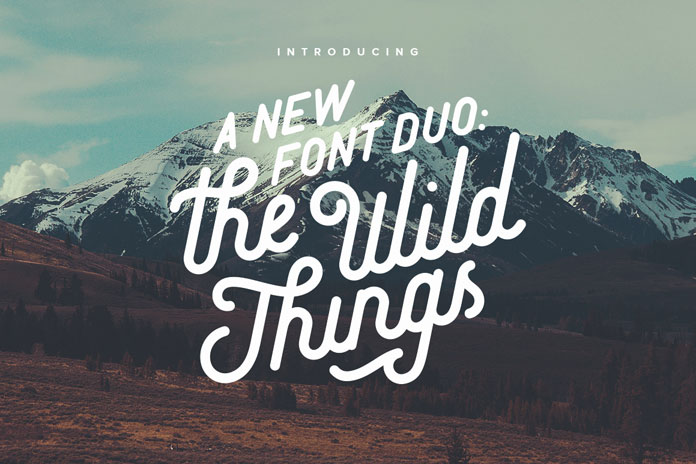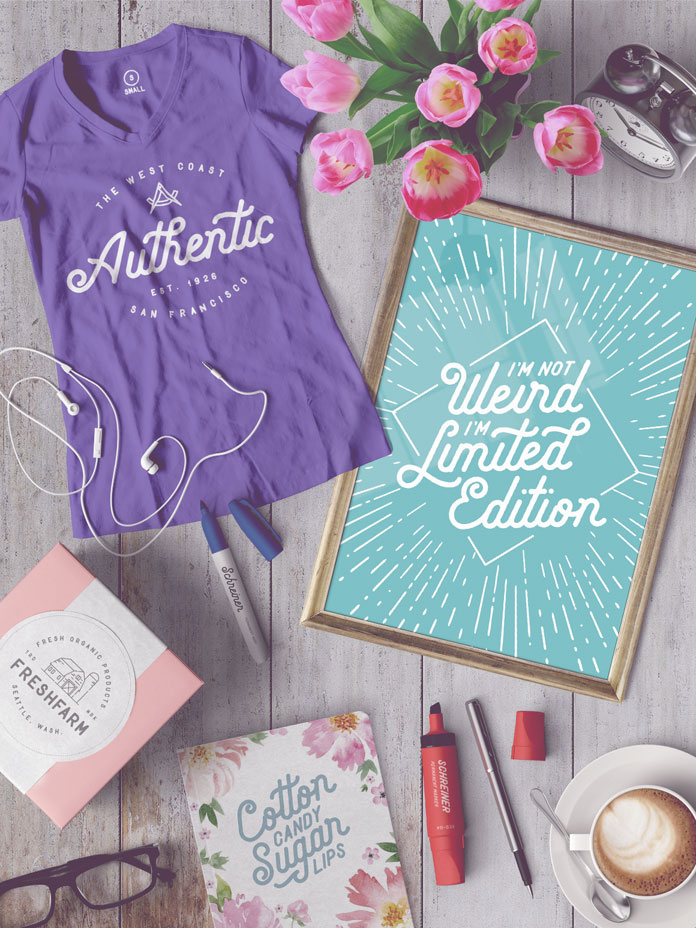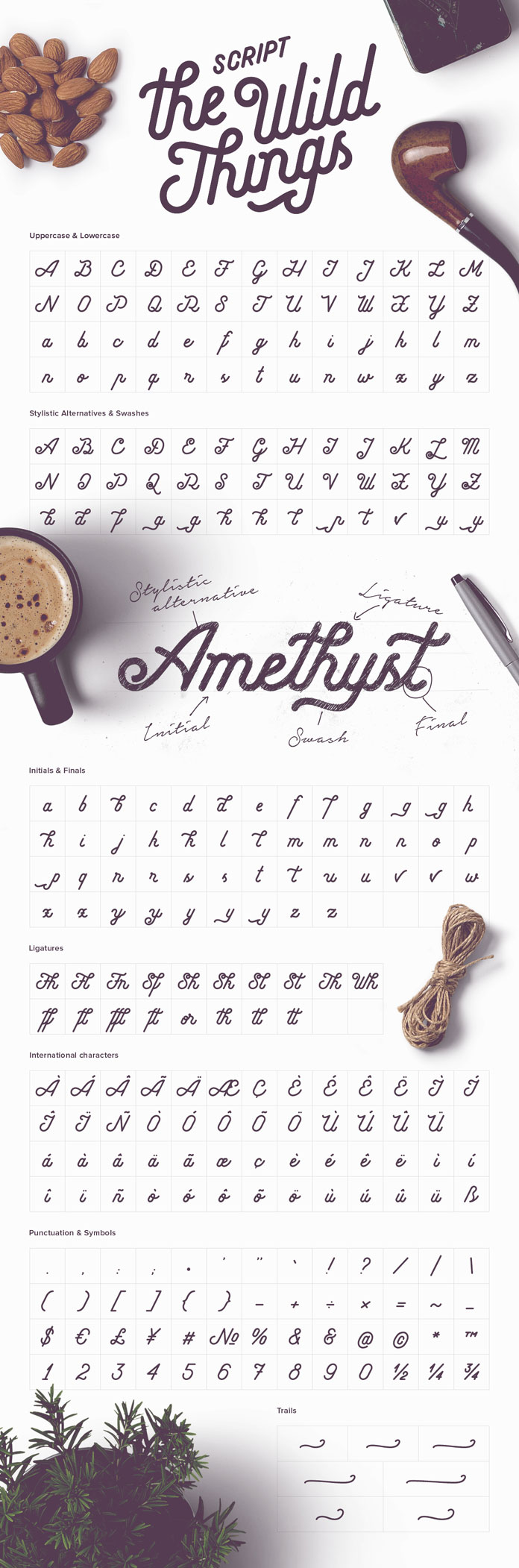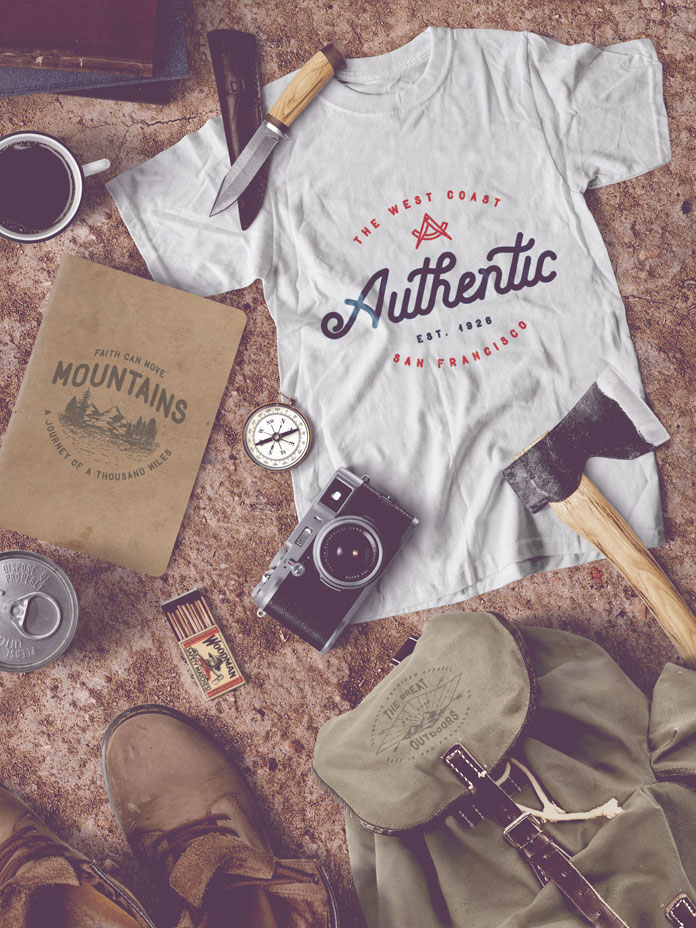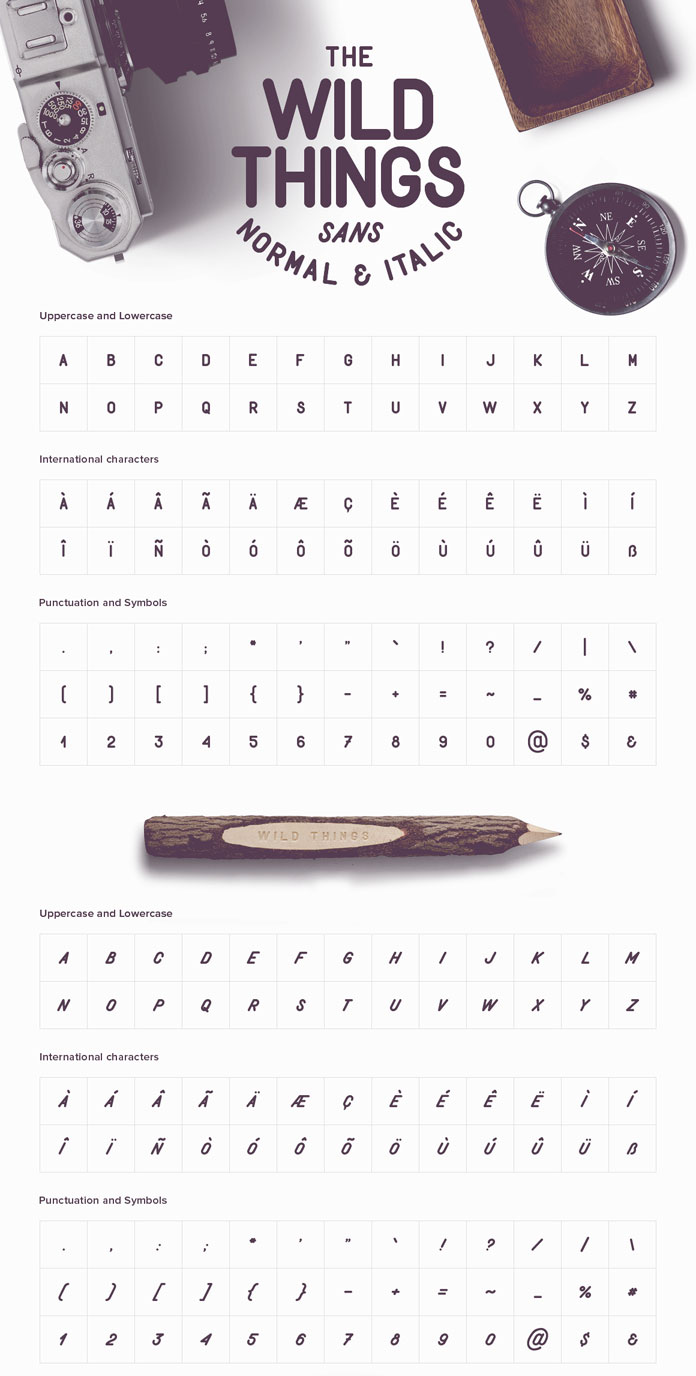
Check out The Wild Things font duo, a handcrafted set of vintage typefaces.
Type designer Victor Barac recently published ‘The Wild Things’, a font duo consisting of a cursive script and a rounded sans-serif with both normal and italic styles. Both fonts share the same handcrafted, vintage inspired look. Their natural style can be used for cool t-shirt or poster designs. The script version is equipped with plenty of OpenType features such as stylistic alternatives and swashes, ligatures, initials & finals, punctuation and symbols (also available in the Sans version), and some additional swash trails. Both typefaces support most international characters.